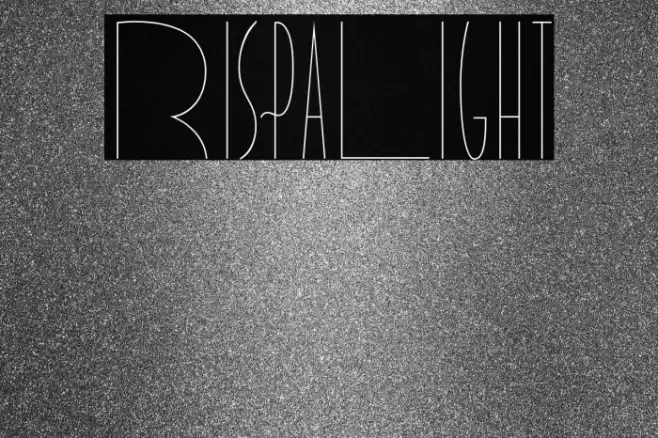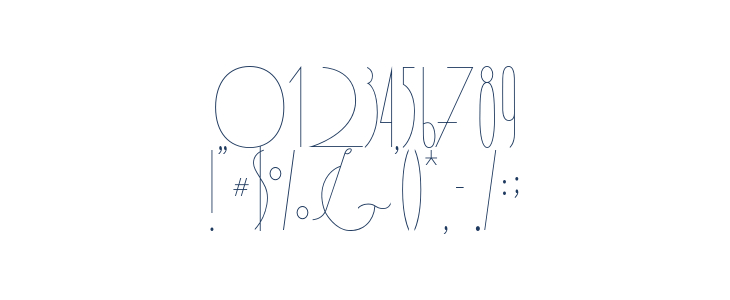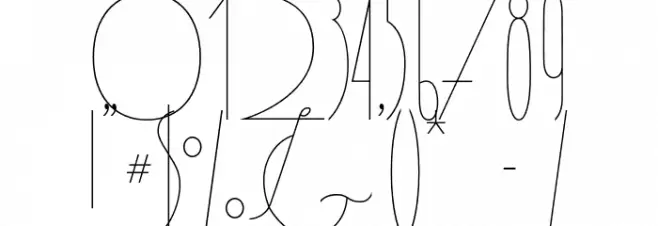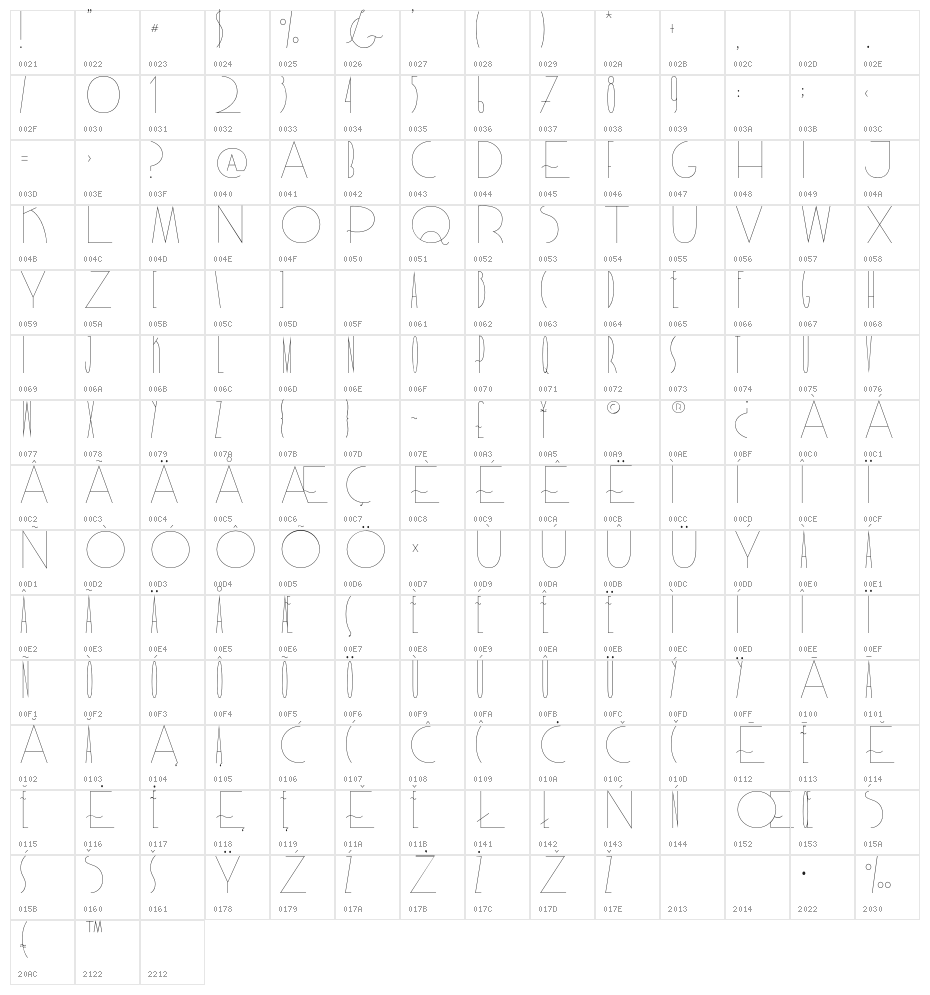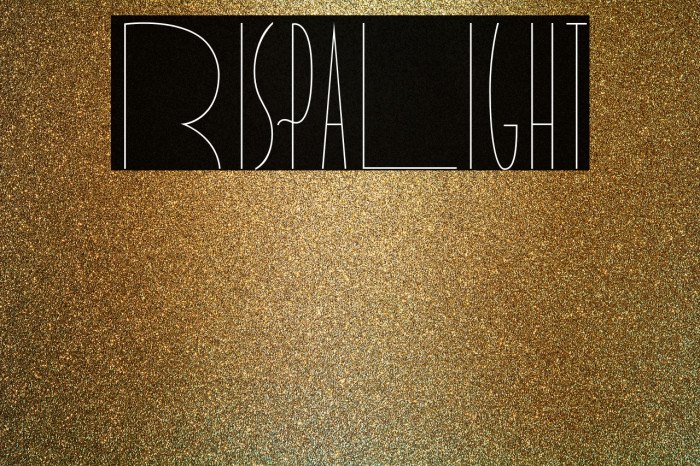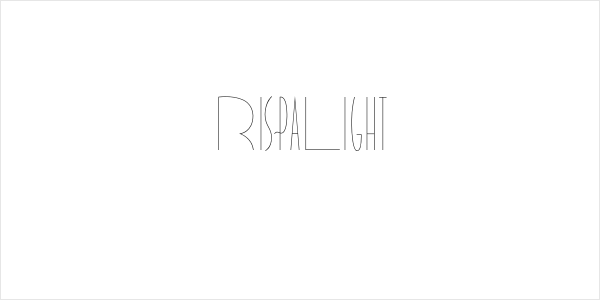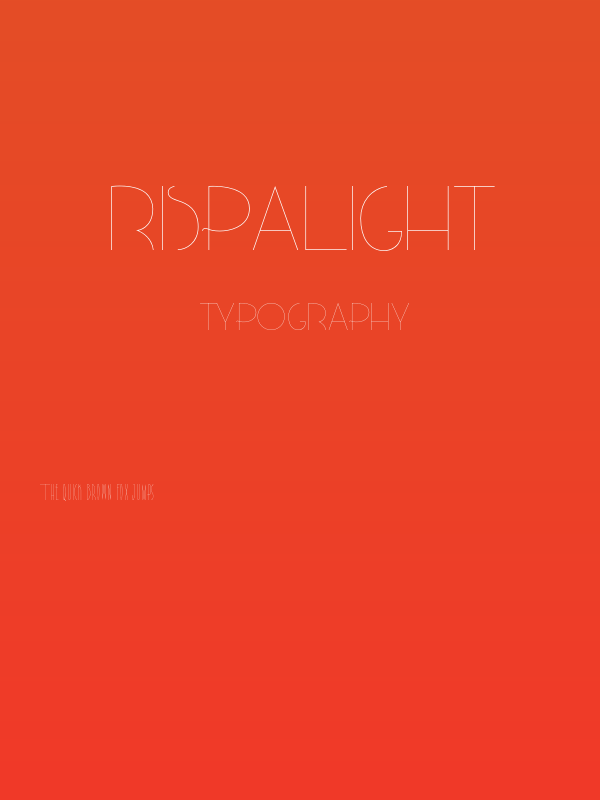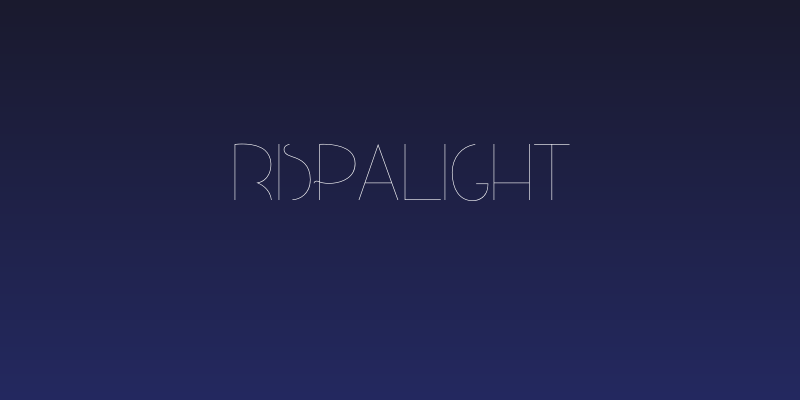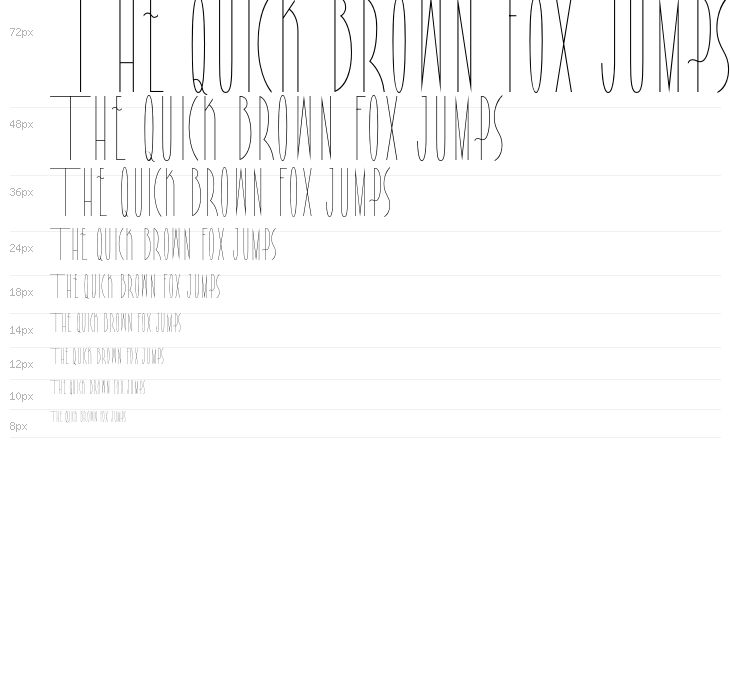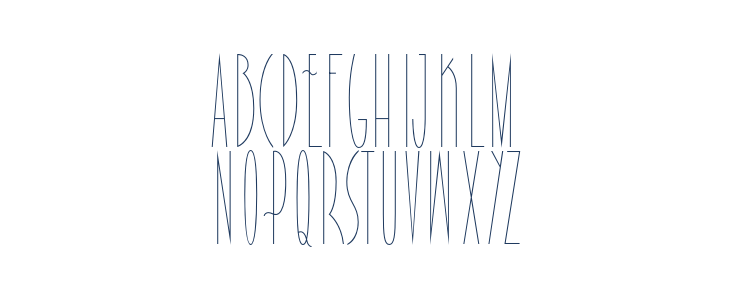
RispaLight Font
RispaLight Description
This font features a sleek, ultra-thin design with elongated letterforms that exude a modern and minimalist aesthetic. The characters are crafted with a high degree of precision, showcasing a delicate balance between form and space. The uppercase letters are particularly tall and narrow, while the lowercase letters maintain a consistent thinness, contributing to an overall airy and elegant appearance. The numerals and special characters follow the same design principles, ensuring uniformity across all glyphs. This font is ideal for projects that require a sophisticated and contemporary look.
A sleek, ultra-thin font with elongated, modern letterforms from Uncategorized fonts.